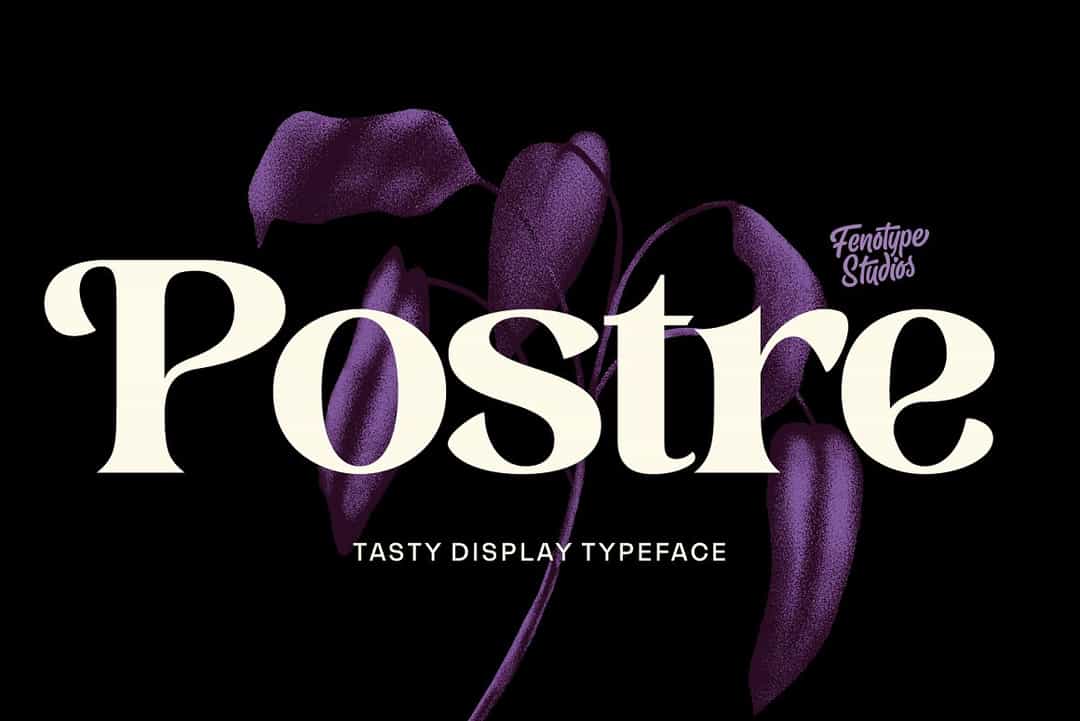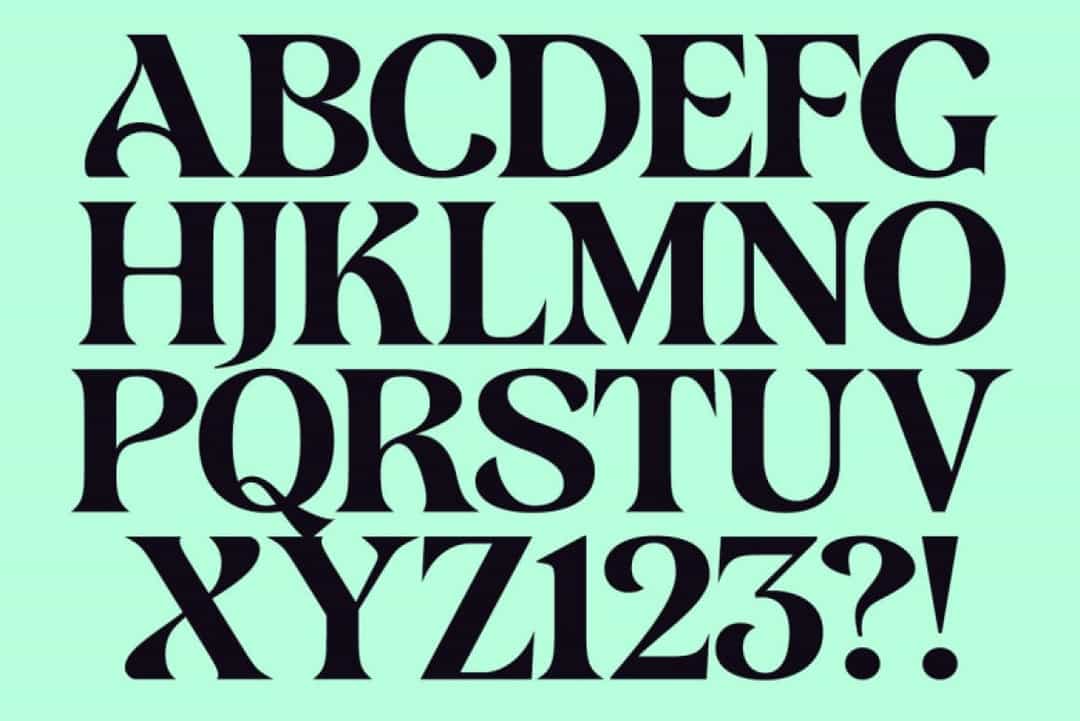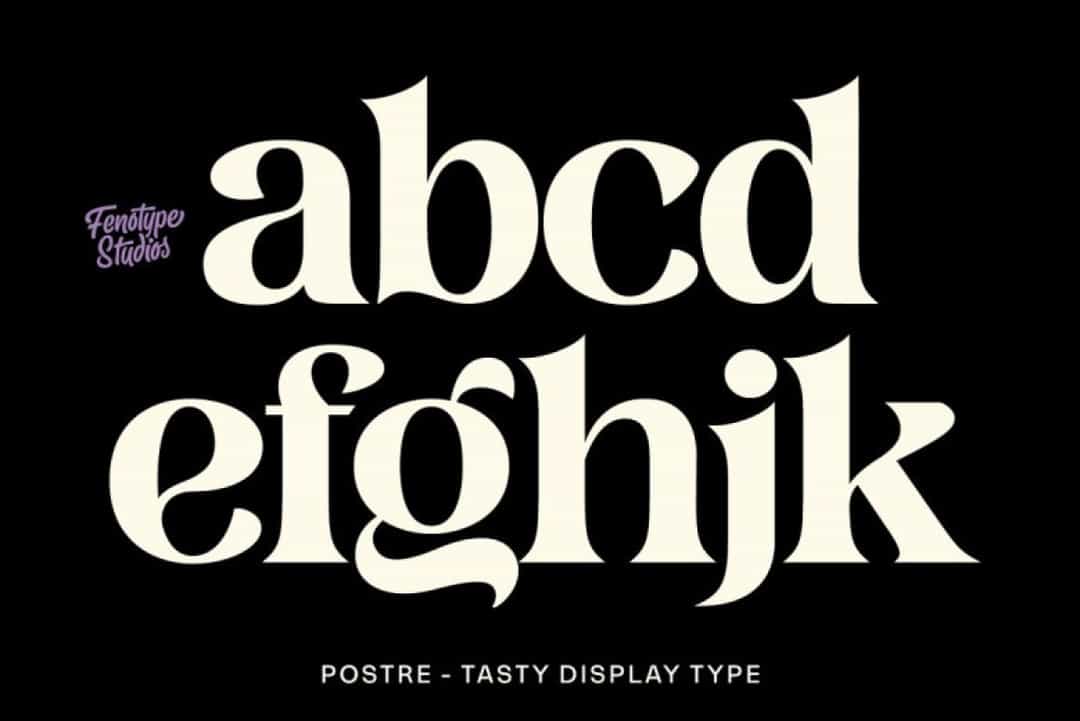
Postre is a modern high-contrast serif typeface inspired by Art Nouveau. Perfect for headlines, packaging, posters and displays making a classy impression, Postre offers 50 characters with Swash, Stylistic and Titling Alternates as well as traditional Ligatures to give it its modern charm.